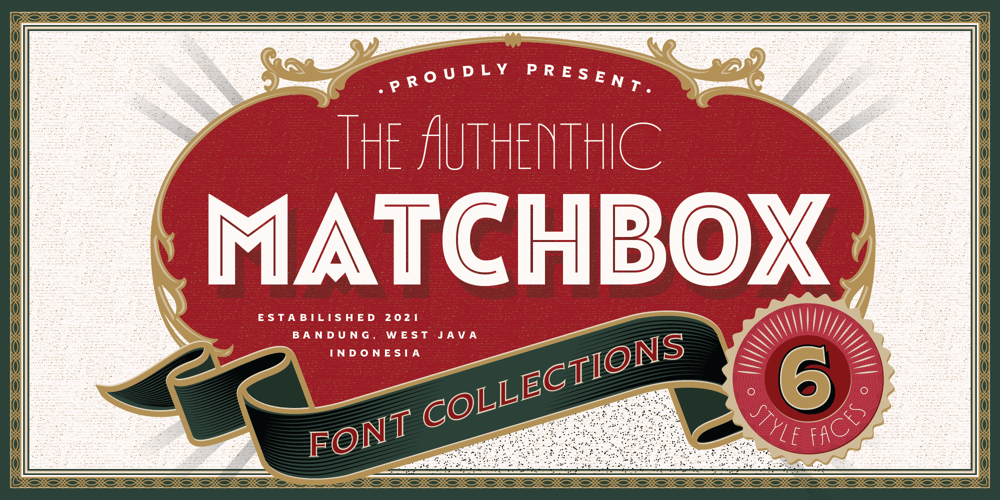
Matchbox Font Collections Font Family was designed by Adam Fathoni Haris and published by Adam Fathony. Matchbox Font Collections contains 6 styles and family package options. Matchbox Font CollectionsInspired by a vintage book, old style design, a classic casual vintage look fonts. Minimal decoration on the fonts made it more casual look. The fonts are very versatile, even it works also on modern design but still keep the classic look.Created 6 Fonts that can be combined each other. Like on the Preview images, I’ve been created from the victorian style to the minimalist badges. It’s still blend to each other.What’s inside : Matchbox Linea – Bold, Sharp, Standout with inline cut. Matchbox Lettre – Popular Vintage Sign Style. Matchbox Deco – As it names, Art Deco Style. Matchbox Scriptura – Casual Script Fonts, Good for Pair or on a small details. Matchbox Ornato – The Only fonts with a touch of vintage decorations. Matchbox Graso – Little touch of a Fat, Fun and Casual.